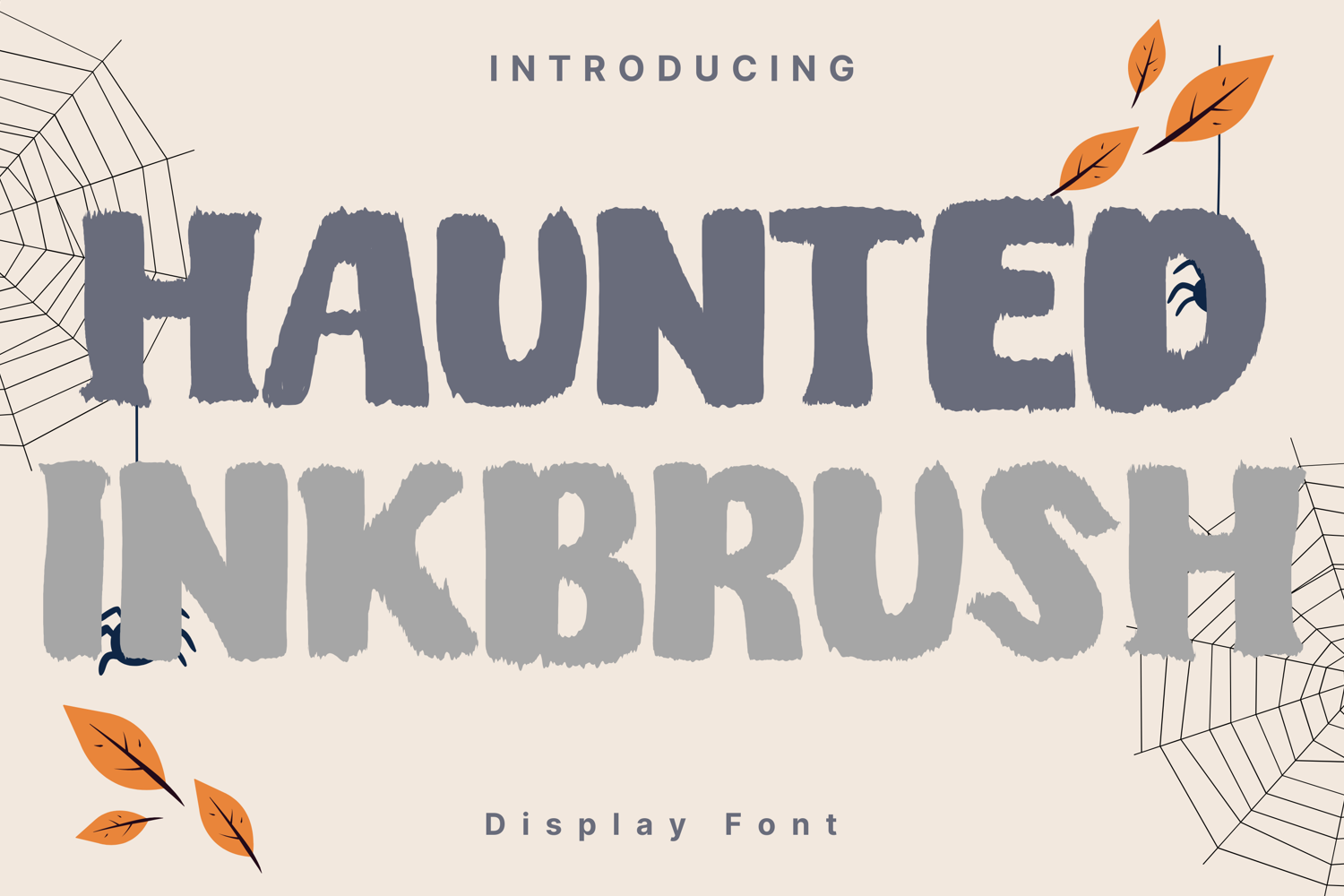
Haunted Inkbrush Style
HauntedInkbrush
Haunted Inkbrush Style is a playful and bold display typeface with rough, hand-painted edges that give it a lively and organic feel. The uneven strokes resemble brush lettering, making it perfect for posters, street art designs, comic-style graphics, event titles, or any creative project that requires a strong and expressive visual impact. This font blends casual charm with bold readability, making it ideal for eye-catching headlines and artistic compositions.